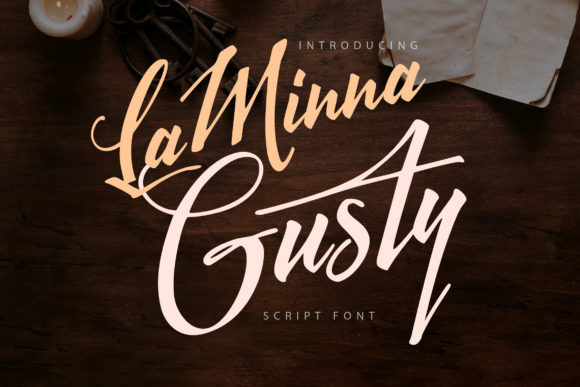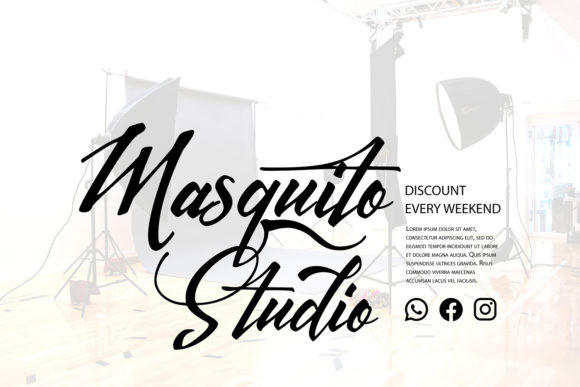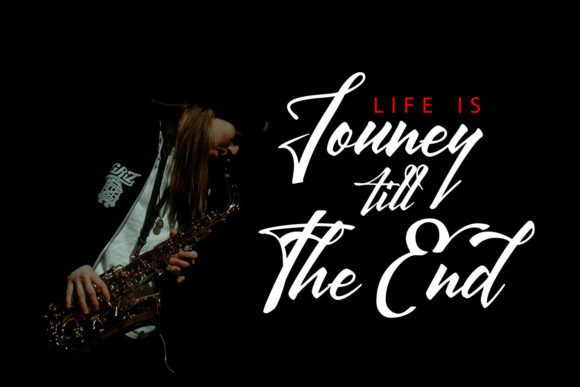
LaMinna Gusty Font
LaMinna Gusty is a stylish and exquisite handwritten font, that exudes elegance and class. This font was particularly crafted for those who need a beautiful and refreshing look to their designs.